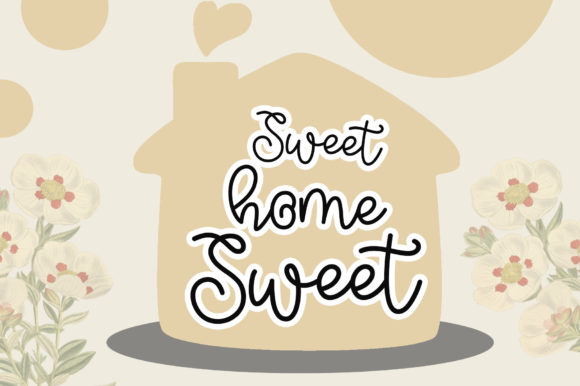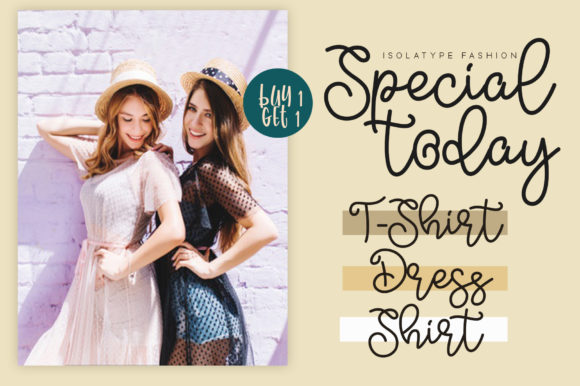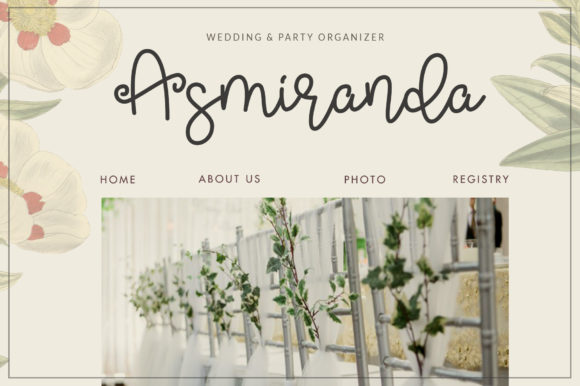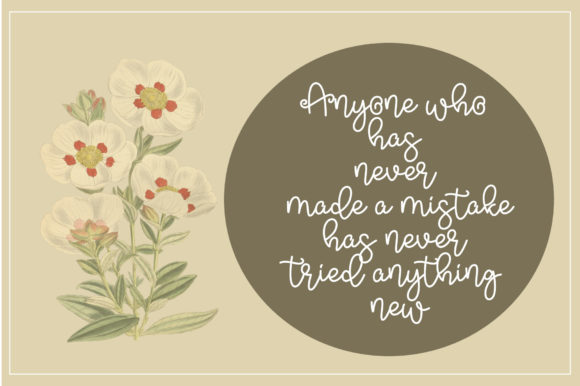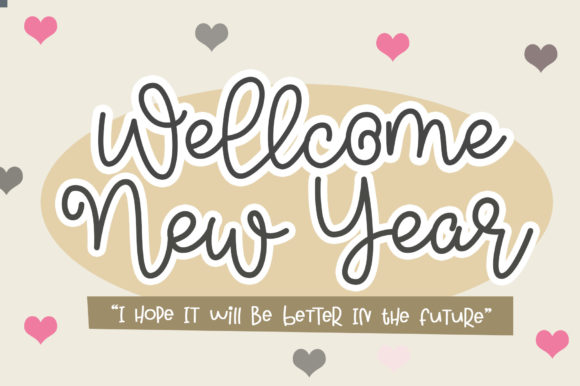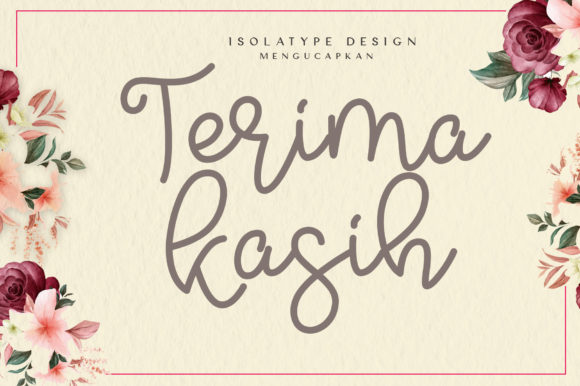
Introducing Glittics Font: The Sweet Handwritten Font for Designers and Crafters
Are you a designer or crafter looking for a font that can add a touch of sweetness and elegance to your projects? Look no further than Glittics Font, a beautifully designed handwritten font that is sure to become a true favorite. In this article, we’ll take a closer look at Glittics Font, its features, and how it can elevate your designs.
What is Glittics Font?
Glittics Font is a sweet handwritten font that is masterfully designed to bring a touch of whimsy and charm to your projects. The font maintains its delicate calligraphic influences while feeling contemporary and fresh, making it perfect for a wide range of design applications.
Key Features of Glittics Font
- PUA Encoded: Glittics Font is PUA (Private Use Area) encoded, which means that you can access all of the glyphs and swashes with ease. This makes it easy to use the font in your designs, even if you’re not a professional typographer.
- Handwritten Style: Glittics Font has a beautiful handwritten style that is perfect for adding a personal touch to your projects. The font is designed to look like it was written with a pen, giving it a warm and inviting feel.
- Delicate Calligraphic Influences: Despite its contemporary feel, Glittics Font still maintains delicate calligraphic influences that give it a touch of elegance and sophistication.
- Contemporary and Fresh: Glittics Font is designed to feel contemporary and fresh, making it perfect for designers and crafters who want to create modern and stylish designs.
Uses for Glittics Font
Glittics Font is a versatile font that can be used for a wide range of design applications, including:
- Digital Design: Use Glittics Font in your digital designs, such as social media graphics, blog posts, and website headers.
- Print Design: Glittics Font is perfect for print design, including business cards, brochures, and flyers.
- Crafting: Glittics Font is a great choice for crafters who want to add a personal touch to their projects, such as scrapbooking, card making, and journaling.
- Branding: Use Glittics Font as a branding font for your business or personal brand, adding a touch of elegance and sophistication to your logo and marketing materials.
Tips for Using Glittics Font
Here are a few tips for using Glittics Font in your designs:
- Pair with Other Fonts: Glittics Font pairs well with other fonts, such as sans-serif fonts and script fonts. Experiment with different font combinations to find the perfect look for your design.
- Use in Headlines and Titles: Glittics Font is perfect for headlines and titles, adding a touch of elegance and sophistication to your design.
- Add Swashes and Glyphs: Take advantage of Glittics Font’s PUA encoding and add swashes and glyphs to your design for a more personalized look.
Glittics Font is a beautiful and versatile font that is perfect for designers and crafters who want to add a touch of sweetness and elegance to their projects. With its delicate calligraphic influences, contemporary feel, and PUA encoding, Glittics Font is a great choice for a wide range of design applications. Whether you’re designing for digital or print, Glittics Font is sure to become a true favorite.